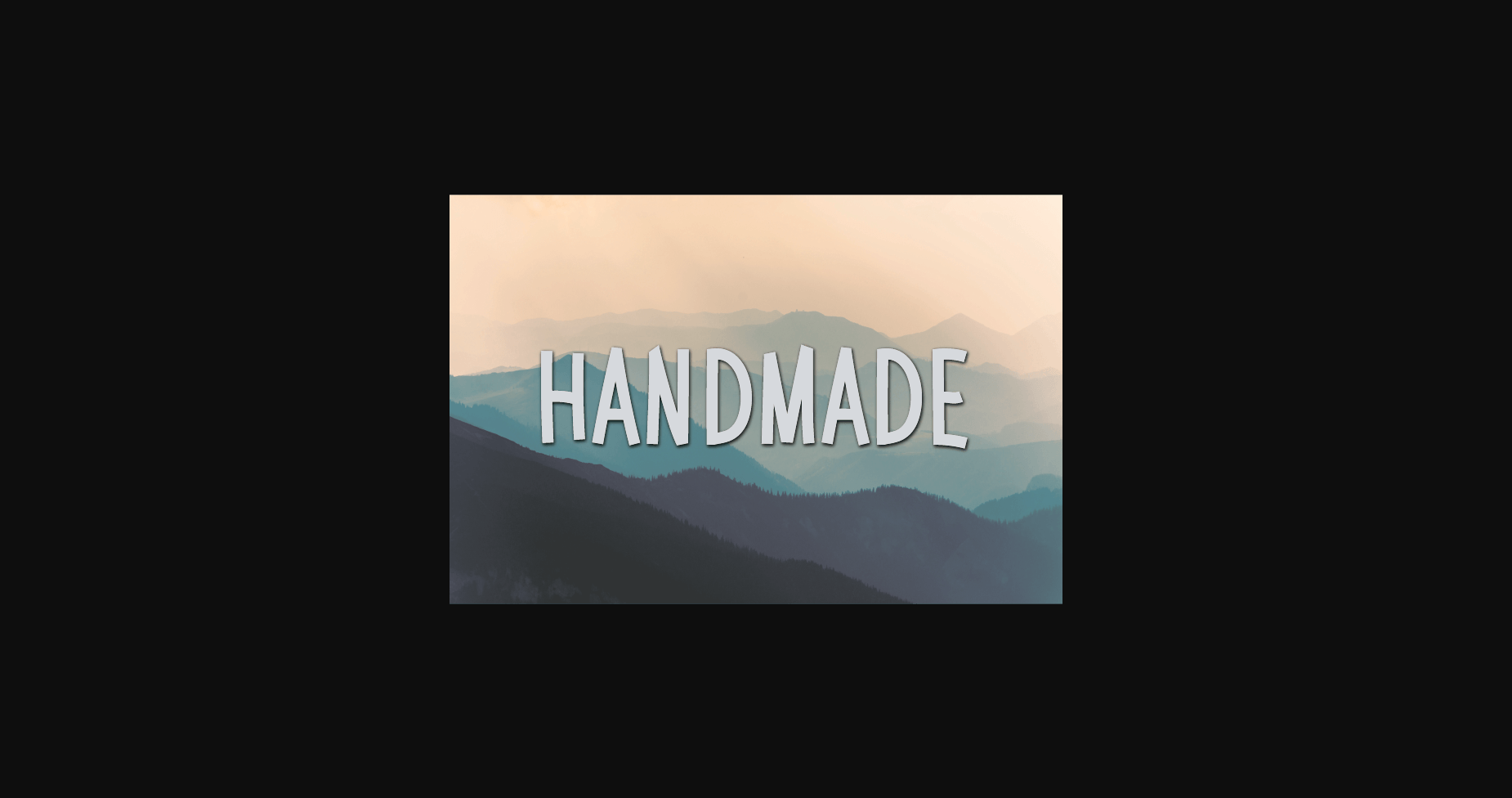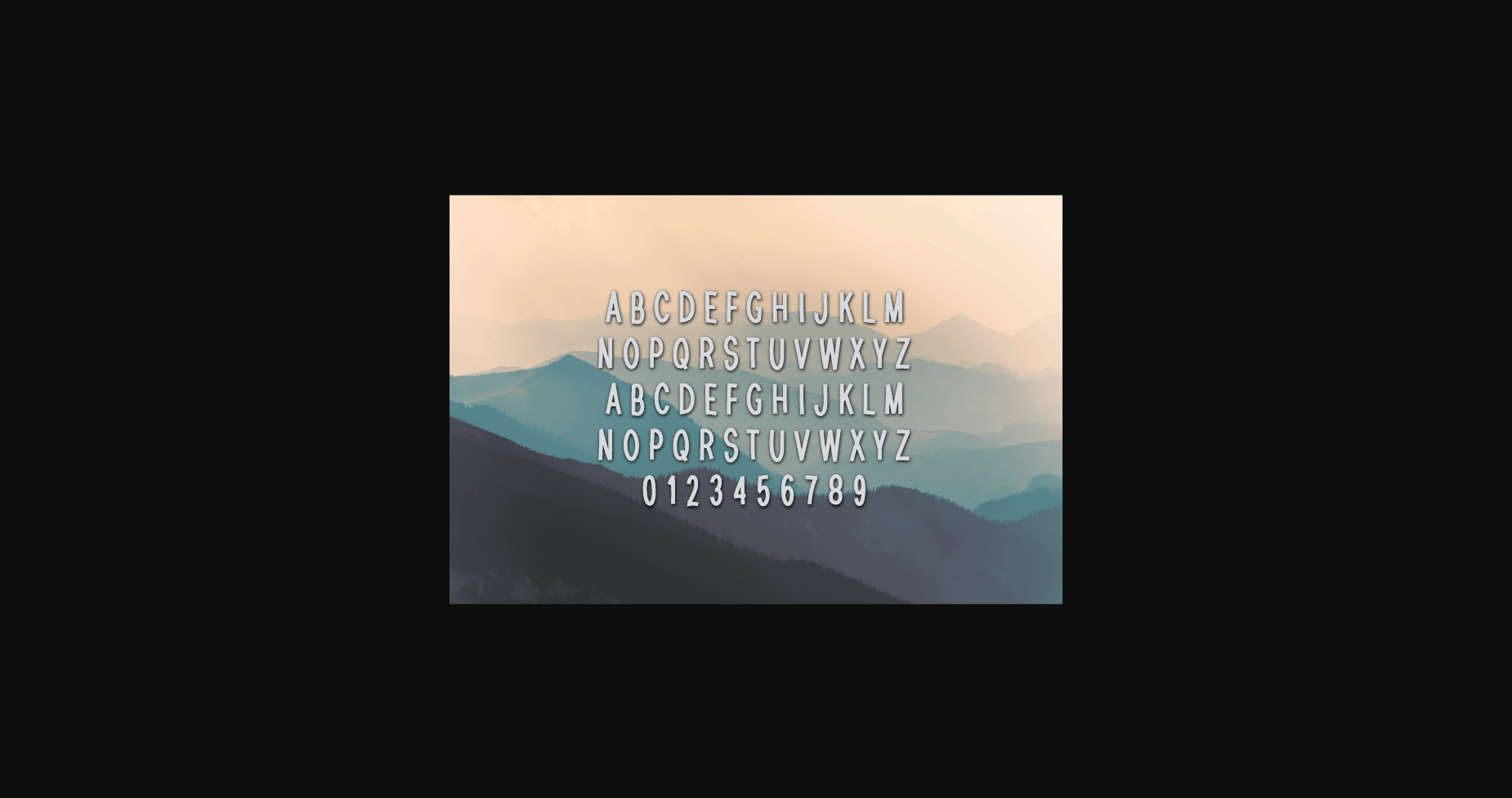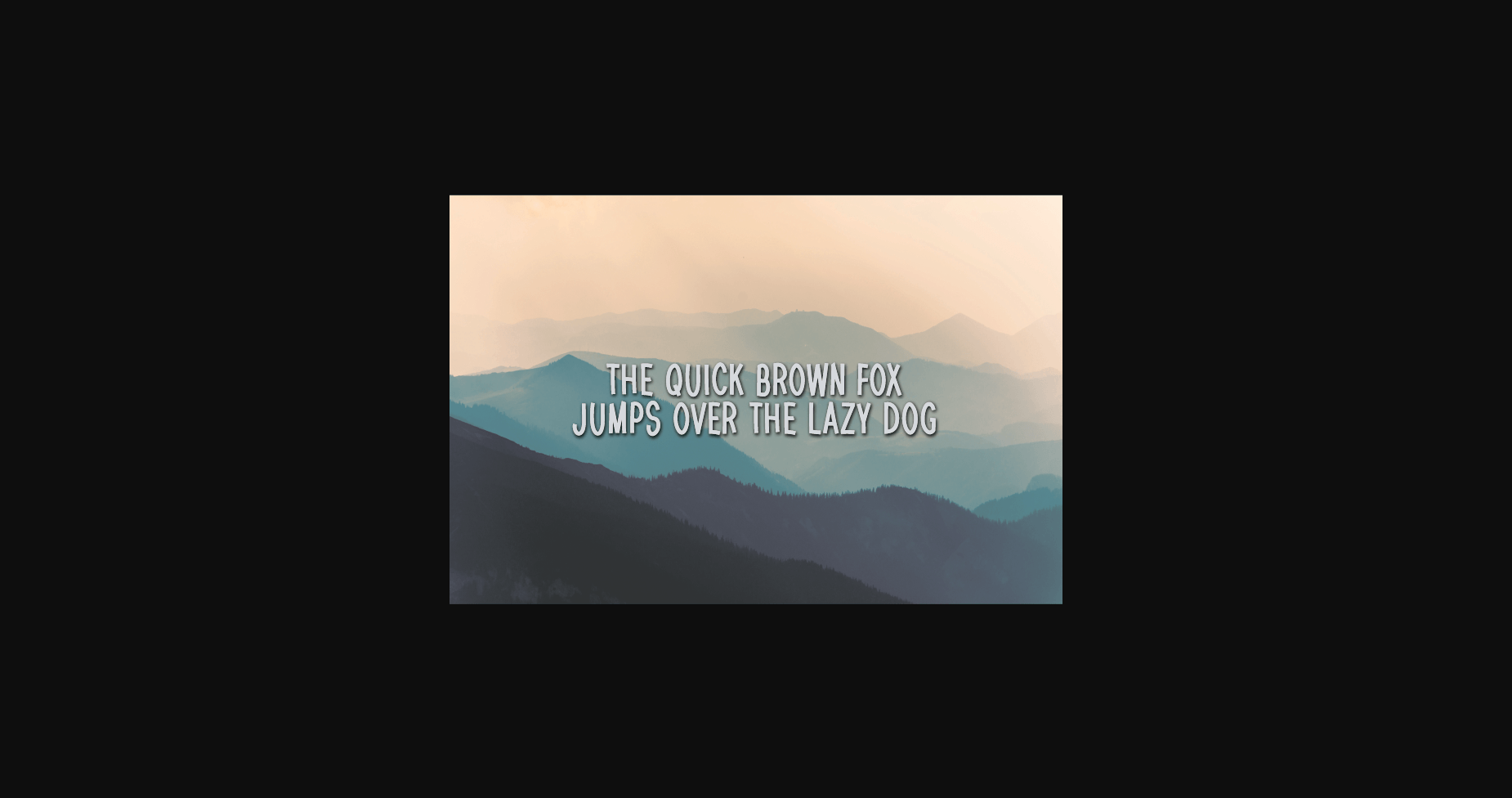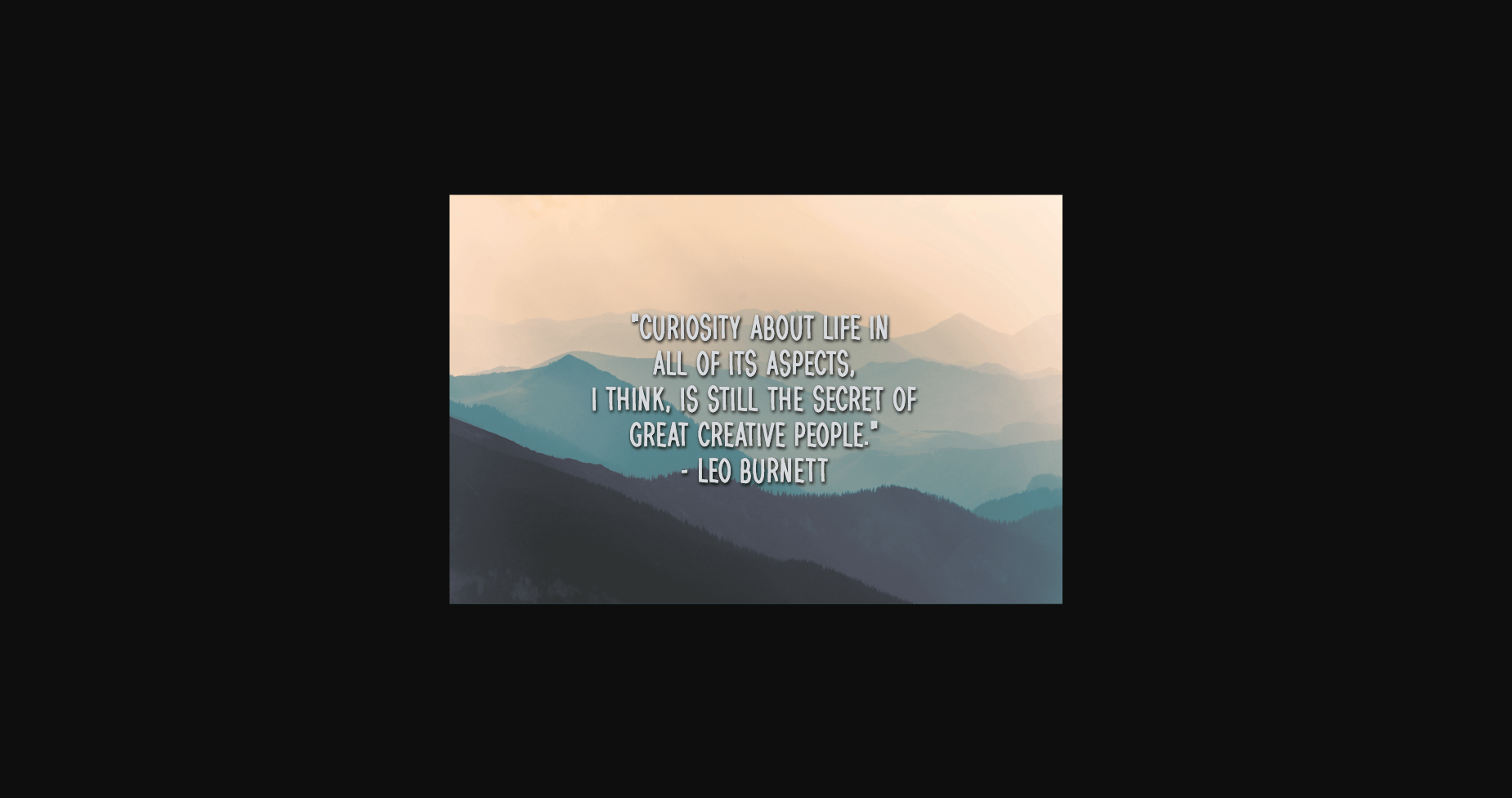
HomeSans Serif FontsHandmade Font Sans Serif Fonts Handmade Font FacebookXPinterestWhatsApp 1 of 6 ... Handmade Font Poster 2... Handmade Font Poster 3... Handmade Font Poster 4... Handmade Font Poster 5... Handmade Font Poster 6... About Handmade Font Handmade is an interesting and unique sans serif font perfect for quotes, notes, T-shirts, and many more. Fall in love with its incredibly versatile style, and use it to create spectacular designs! DOWNLOAD NOW People also explored Pig Year Font Yellow Star Font The Night Font Christmas Melody Font Morgantara Font Mbuhya Font Sweetish Font Flowery Font Olivia Bloom Font 298 0 TagsHandmade Font Previous articleWalgamble FontNext articleEleven Font LEAVE A REPLY Cancel reply Comment: Please enter your comment! Name:* Please enter your name here Email:* You have entered an incorrect email address! Please enter your email address here Website: Save my name, email, and website in this browser for the next time I comment. Personal Use Free BD Lofi Personal Use Free Read more about this font Still Time Personal Use Free Read more about this font Hillgates Personal Use Free Read more about this font Stone Cold Personal Use Free Read more about this font BLOG Free Fonts Risk: Why Free Fonts Can Be Dangerous for Designers Free Fonts Risk: Why Free Fonts Can Be Dangerous for Designers Using free fonts is a common practice in web and graphic design. However, the... To increase your work productivity, choose the most readable fonts. Top 7 Google Fonts Alternatives for Faster and Privacy-Friendly Web Design (2025) Best Fonts for T-Shirt Design – Top 2025 Picks